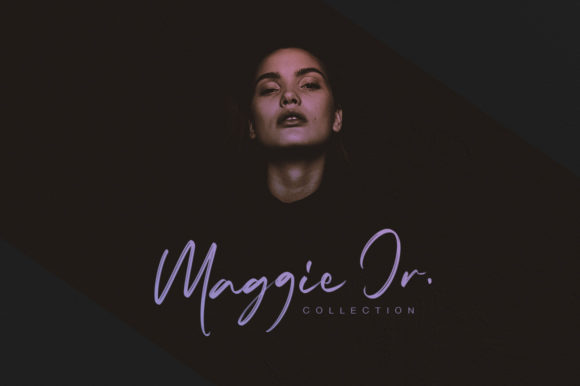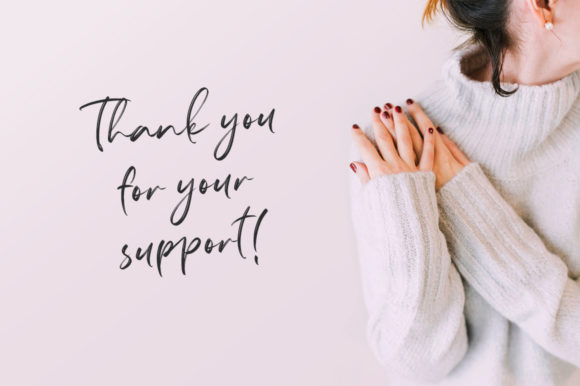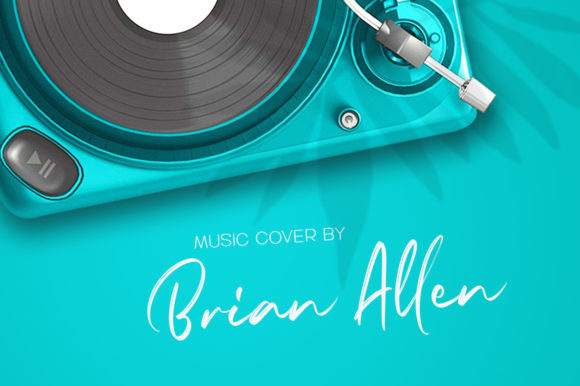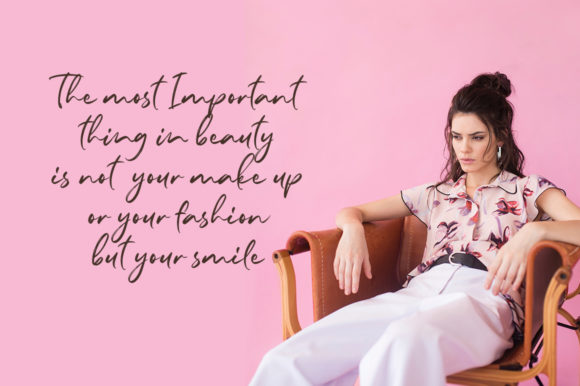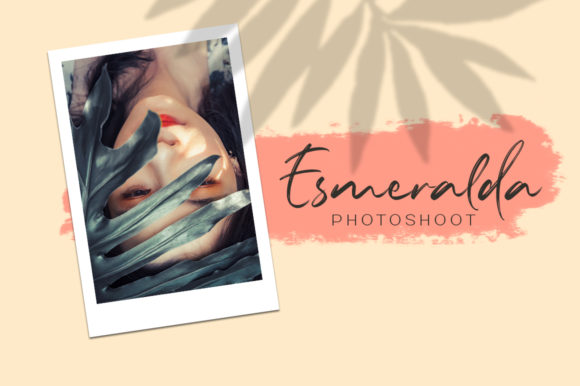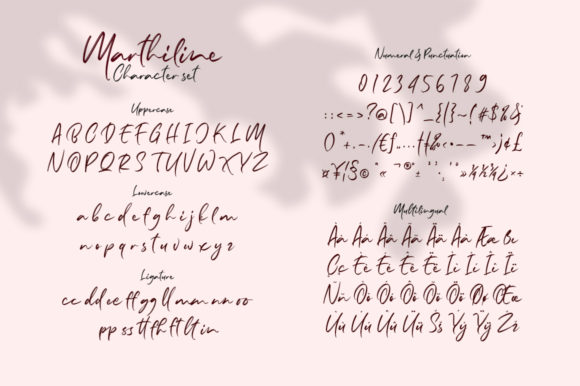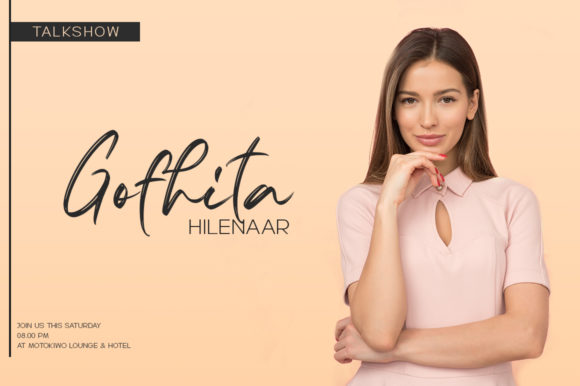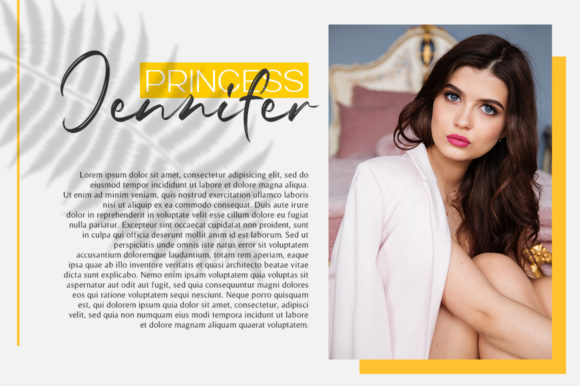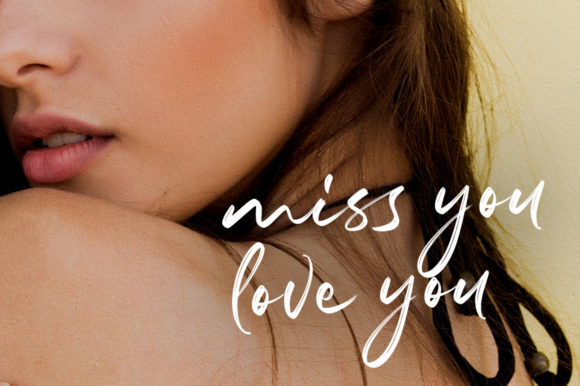
Marthiline Font
About Marthiline Font
Marthiline is a sweet handwritten font that is perfect for any crafting project. It can add a romantic touch to any design.